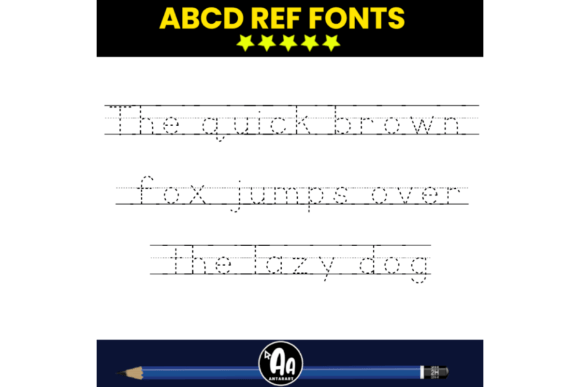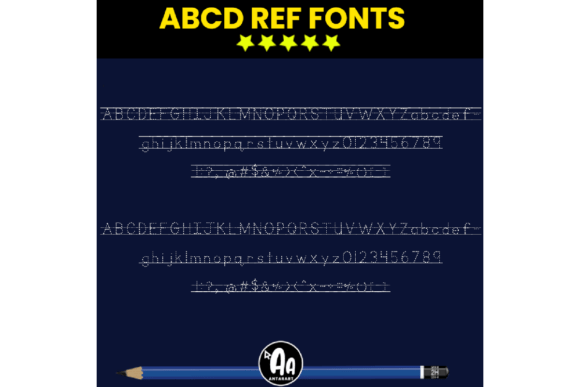
Introducing the Dashed Lined Ruled Tracing Font: A Game-Changer for Handwriting Practice
Are you a designer, crafter, or educator looking for a reliable and engaging way to help children master handwriting skills? Look no further than the Dashed Lined Ruled Tracing Font. This innovative 2-font set is specifically designed to provide a comprehensive handwriting guide for beginners, making it an essential tool for any learning environment.
What Sets This Font Apart?
The Dashed Lined Font Pack is unique in its approach to handwriting practice. Each font features dashed characters with built-in 2-line and 3-line ruled baselines, providing a clear and structured guide for children to learn letter formation and placement. The dashed letters are carefully positioned directly on the writing guidelines, allowing students to practice proper letter shape while learning to align characters on the baseline and midline.
Flexible and Adaptable
One of the standout features of this font pack is its flexibility. With two ruled options – half and full lines – this set offers adaptability for multiple grade levels and handwriting stages. Whether you’re working with young beginners or helping older students refine their skills, this font has got you covered.
Comprehensive and Inclusive
The Dashed Lined Font Pack includes a wide range of characters, making it ideal for full handwriting practice. The set features uppercase and lowercase letters, numbers (0–9), and common symbols. While it’s worth noting that this font does not support Spanish characters, it’s an excellent choice for educators and designers working with students who speak English as their primary language.
Inspired by Traditional School Handwriting Style
This font is inspired by the traditional school handwriting style, making it perfect for creating interactive worksheets that make writing practice structured, engaging, and effective. The classic look and feel of the font will help students develop muscle memory and improve their handwriting skills in a way that feels familiar and accessible.
Perfect for Printable Practice Sheets and Classroom Décor
The Dashed Lined Ruled Tracing Font is not just limited to handwriting practice. Its versatility makes it an excellent choice for creating printable practice sheets, bulletin board letters, and classroom décor. You can use this font to create engaging and interactive learning materials that will captivate your students’ attention and inspire them to learn.
As a designer or crafter, you’ll appreciate the flexibility and customization options offered by the Dashed Lined Ruled Tracing Font. You can use this font to create a wide range of products, from educational resources and worksheets to posters and decorative materials. The font’s clear and legible design makes it easy to work with, and its adaptability ensures that you can tailor your creations to suit different age groups and learning styles.
Tips for Using the Dashed Lined Ruled Tracing Font
To get the most out of this font, here are a few tips to keep in mind:
- Use the font to create interactive worksheets that make writing practice fun and engaging.
- Experiment with different colors and design elements to make your materials visually appealing.
- Consider using the font in conjunction with other educational resources, such as worksheets and activity sheets.
- Take advantage of the font’s flexibility by adapting it for different grade levels and handwriting stages.
| Font Name | Dashed Lined Ruled Tracing Font |
| Author | AntarArt |
The Dashed Lined Ruled Tracing Font is an invaluable resource for designers, crafters, and educators looking to help children master handwriting skills. Its unique combination of dashed characters and ruled baselines provides a comprehensive guide for beginners, making it an essential tool for any learning environment. With its flexibility, adaptability, and classic design, this font is sure to become a go-to choice for anyone involved in creating educational materials.